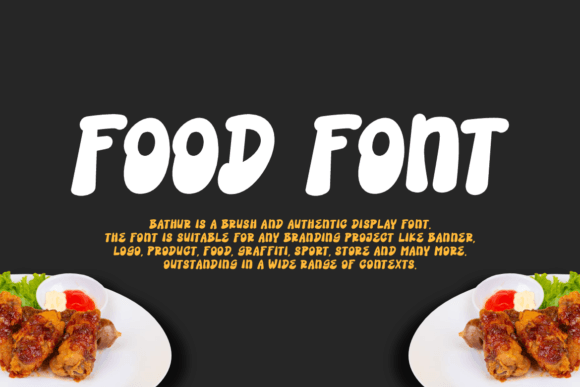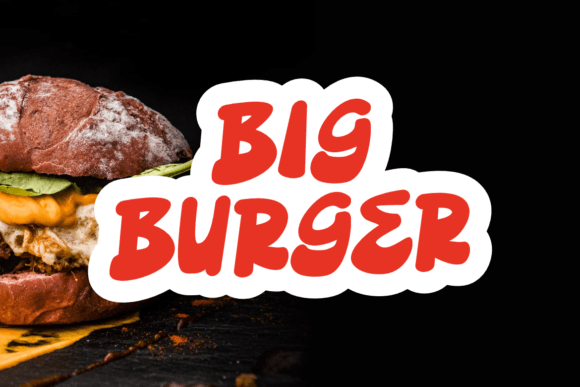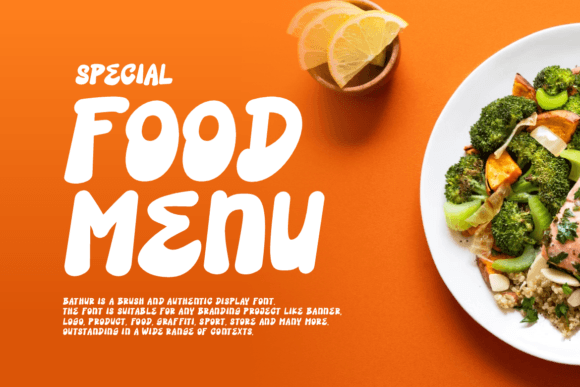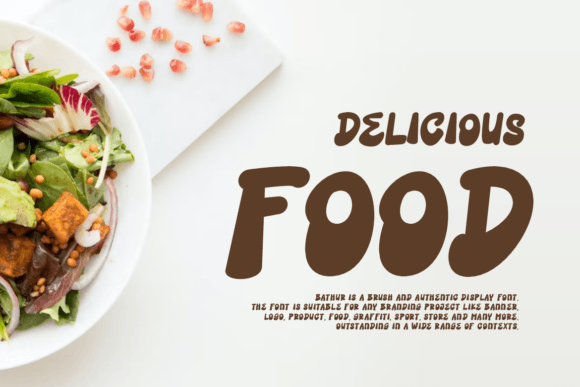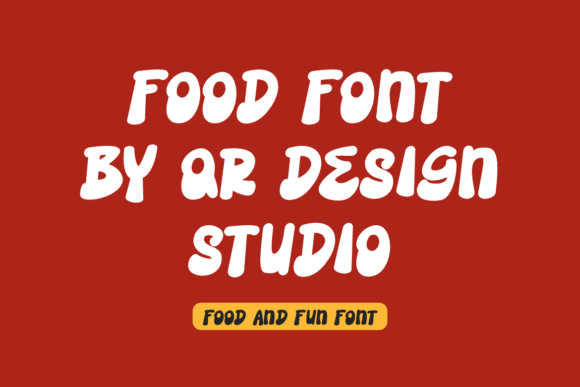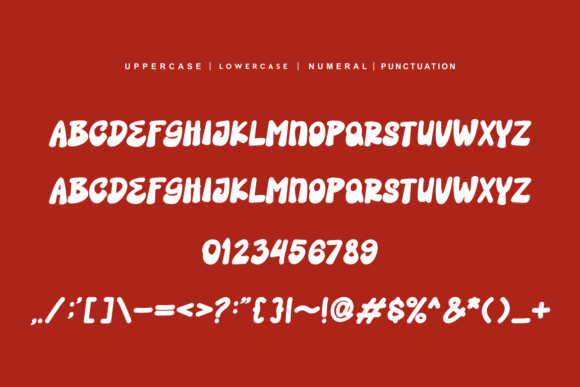
Introduction to Bathur Font
Bathur is a sweet and friendly handwritten font.
Key Features of Bathur Font
Why Choose Bathur Font?
Bathur Font offers exceptional quality and versatility, making it a valuable addition to your design toolkit. Whether you’re creating for personal projects or commercial use, Bathur Font delivers professional results.